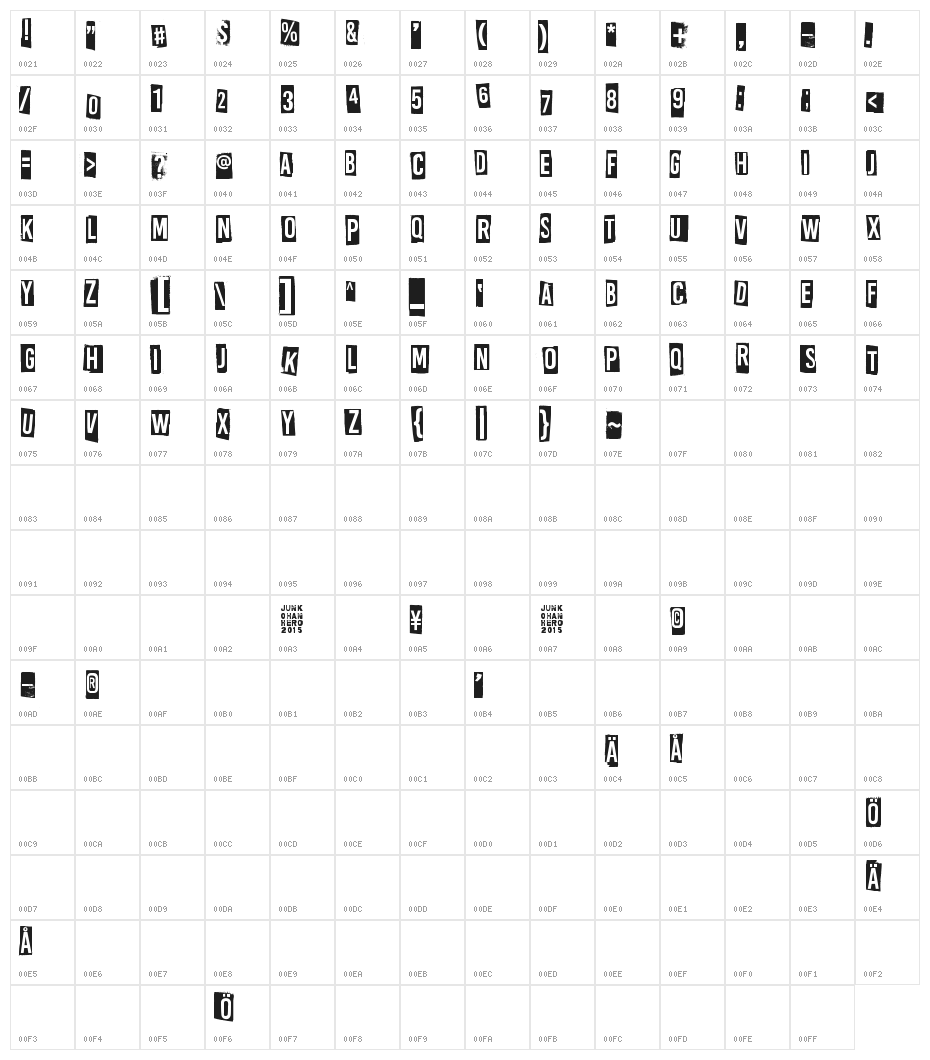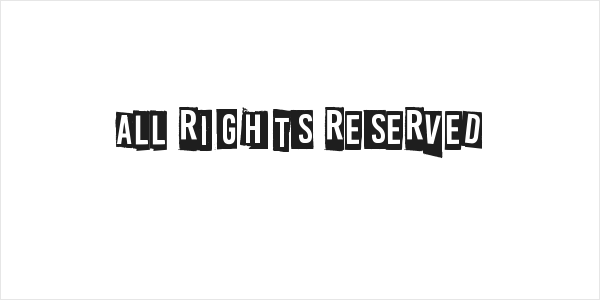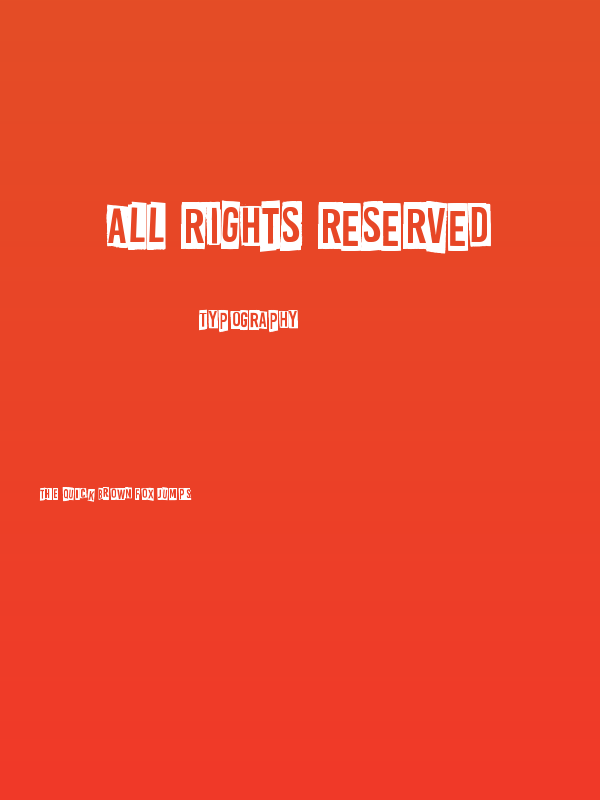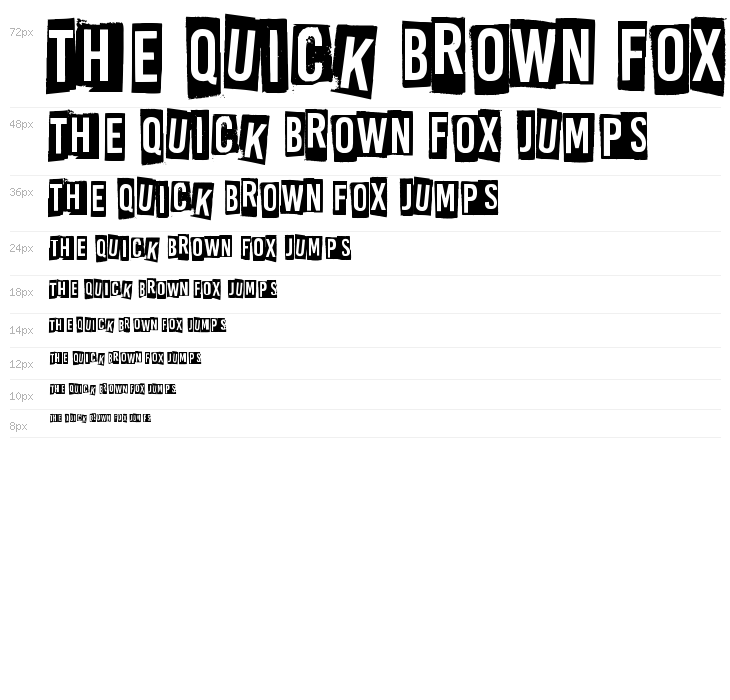
All rights reserved Font
All rights reserved Description
This font features a bold, distressed style reminiscent of cut-out letters from magazines or newspapers, often associated with ransom notes. Each character is enclosed in a rough, uneven black box, giving it a chaotic and edgy appearance. The letters are uppercase and lowercase, with numerals and a variety of special characters, all maintaining the same distressed aesthetic. The irregular edges and varying sizes of the black boxes contribute to a sense of urgency and intensity, making it ideal for designs that require a strong visual impact.
| Use Case | Headlines, Posters, Album covers |
| Proposed Projects | Ideal for use in edgy graphic designs, posters, album covers, or any project requiring a bold, rebellious aesthetic. |